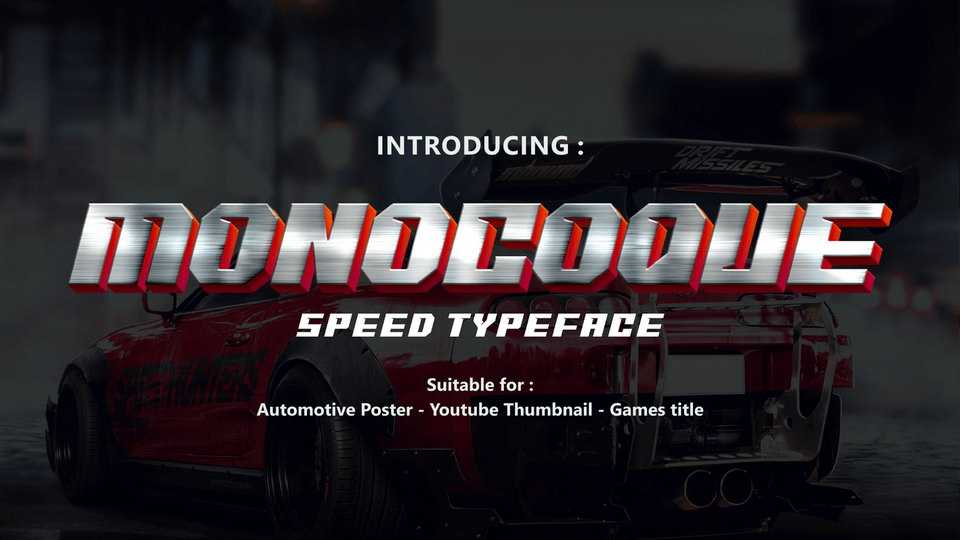
Download Monocoque font, a bold display typeface with blocky shapes, powerful, strong sharp corners and a cut out on the inner. Monocoque will emphasize the racing spirit inside your designs.